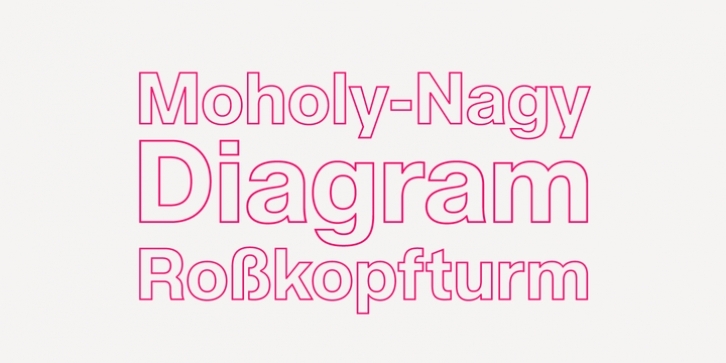
Acronym Outline is a unique display variant that was produced manually, utlilizing Acronym’s assertive Extrabold weight as its foundation. It adheres to the same level of detail and refinement realized in Acronym, employing a relatively monoline stroke that has been subtley tapered, clipped, and altered to accomodate the conversion.
The three available weights (thin, light, regular) effectively act as grades, considering the letter width and spacing remains constant throughout each separate style. Designed to accomodate a range of display sizes, these ‘grades’ can be interchanged without causing critical shifts in word or line spacing.
Features include:
Precision kerning
Standard Ligatures set including ‘f’ ligatures (ff, fi, fj, fl, ffi, ffj, ffl, ae, oe, AE, OE)
Discretionary Ligatures set including (No [numero])
Alternate characters (R, Aringacute, hcircumflex, and numero sign)
Case forms (shifts various punctuation marks up to a position that works better with all-capital sequences)
Capital Spacing (globally adjusts inter-glyph spacing for all-capital text)
Slashed zero
Full set of numerators/denominators superior/inferior numerals
Automatic fraction feature (supports any fraction combination)
Extended language support (Latin-1 and Latin Extended-A)